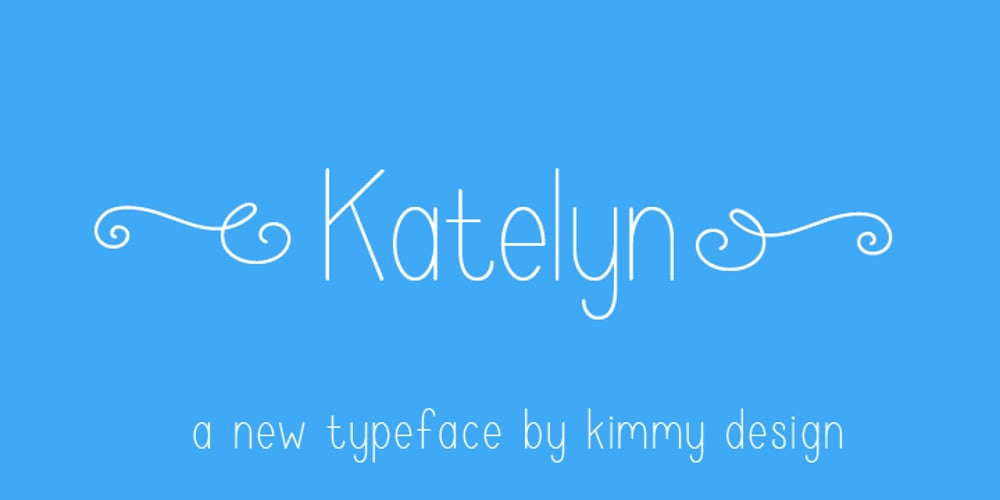
Katelyn Font Family was designed by Kimmy Kirkwood and published by Kimmy Design. Katelyn contains 5 styles and family package options. Katelyn is a sans serif font that reflects a straight and perfect handwritten note. In being in the middle of a sans serif font and completely handwritten, it will bring and lightness and playfulness to any design. Included in the face is a set of Ornaments that enhances the youthful font.